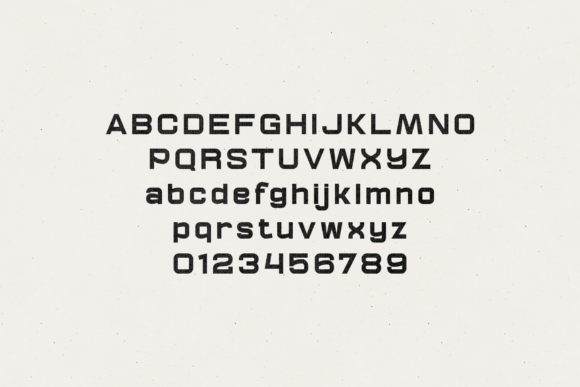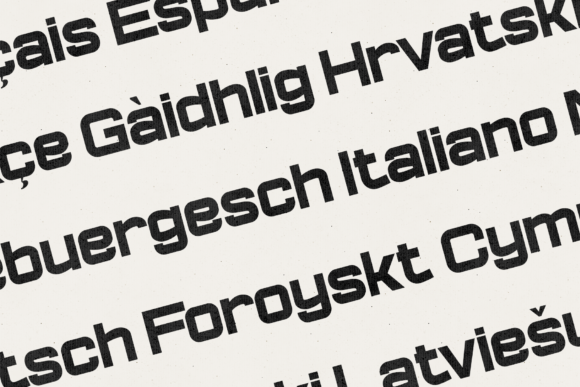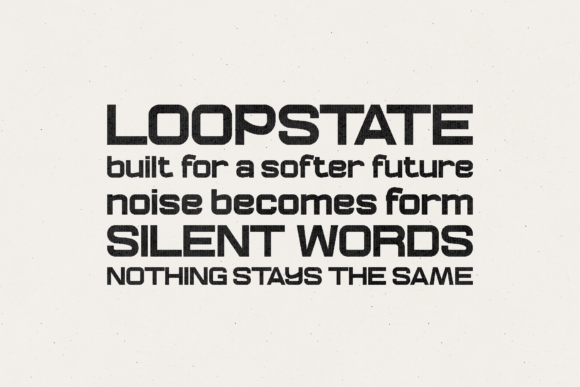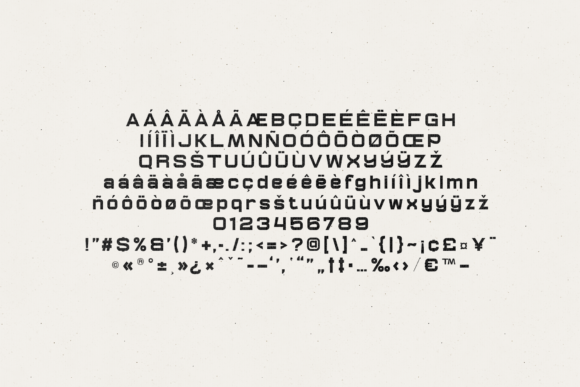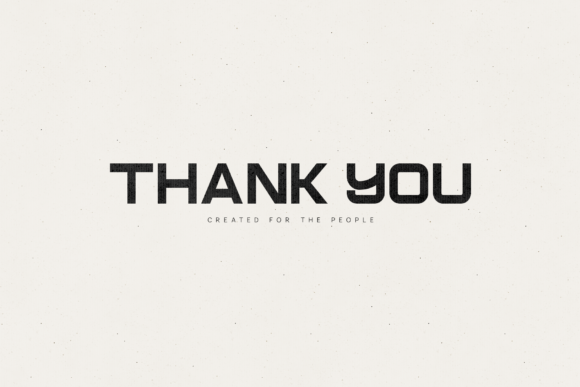
Introduction to Ethere Font Font
Fonts play a crucial role in design, and the Ethere Font font is a typeface that brings both character and versatility to any project. Whether you’re working on a branding project, a website, or a print design, the Ethere Font font offers a unique style that can elevate your work.
Ethere is a futuristic modern sans serif font designed for bold statements and forward-thinking design.
With strong geometric forms, sharp edges, and a clean structural rhythm, Ethere delivers a confident, high-impact aesthetic perfect for contemporary visual identities Ideal for tech branding, posters, headlines, logos, editorial layouts, and modern digital projects, Ethere balances precision with readability.
Key Features of Ethere Font Font
Why Choose Ethere Font Font?
The Ethere Font font is more than just a typeface – it’s a design tool that helps you communicate your message with style and clarity. Its unique character set and versatile design make it suitable for a wide range of applications, from elegant invitations to bold headlines.
With its carefully crafted letterforms and balanced proportions, the Ethere Font font ensures readability and visual appeal across all mediums.
What makes Ethere Font font special?
The Ethere Font font stands out with its unique design, exceptional readability, and versatility across various design applications.